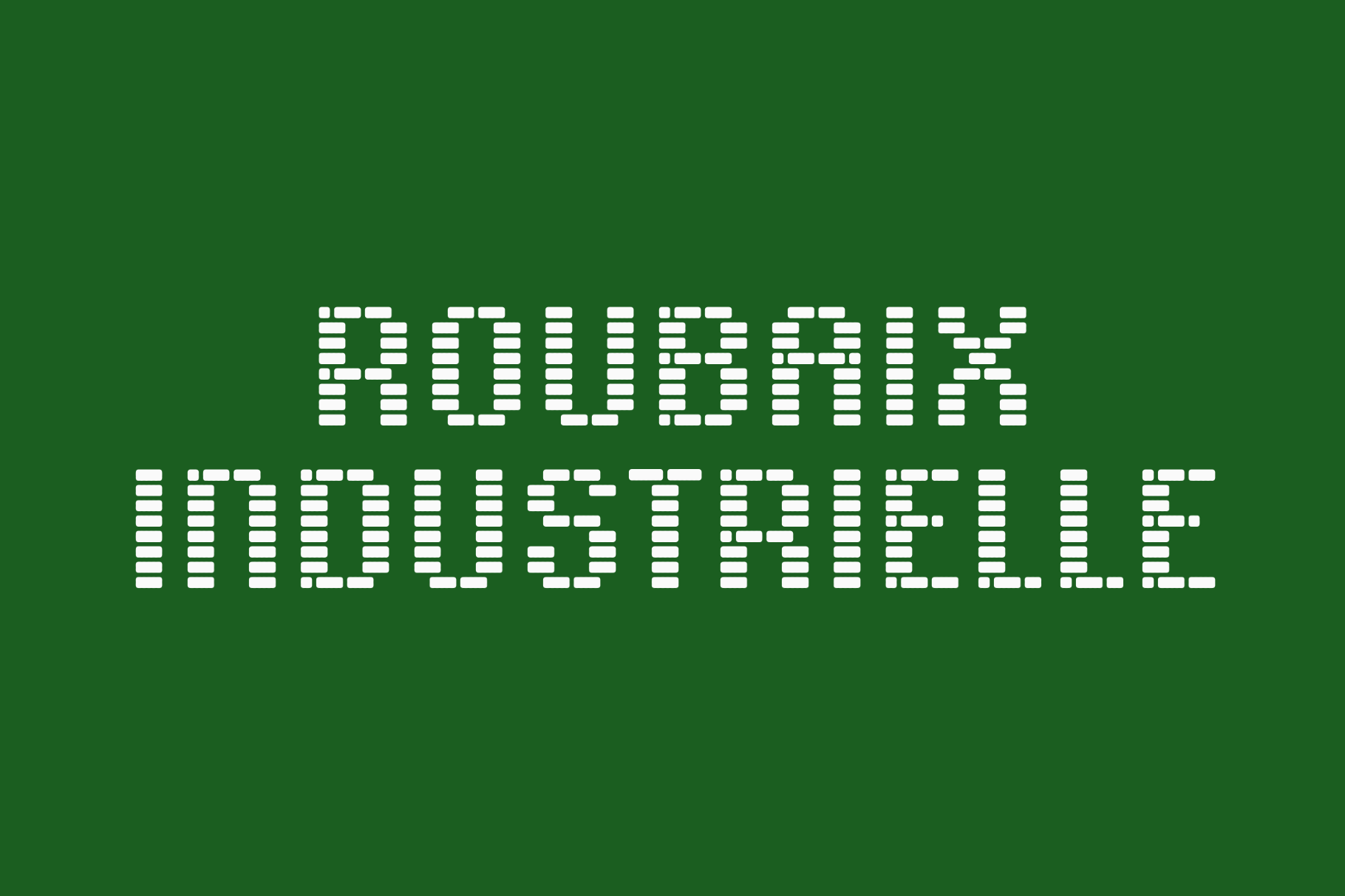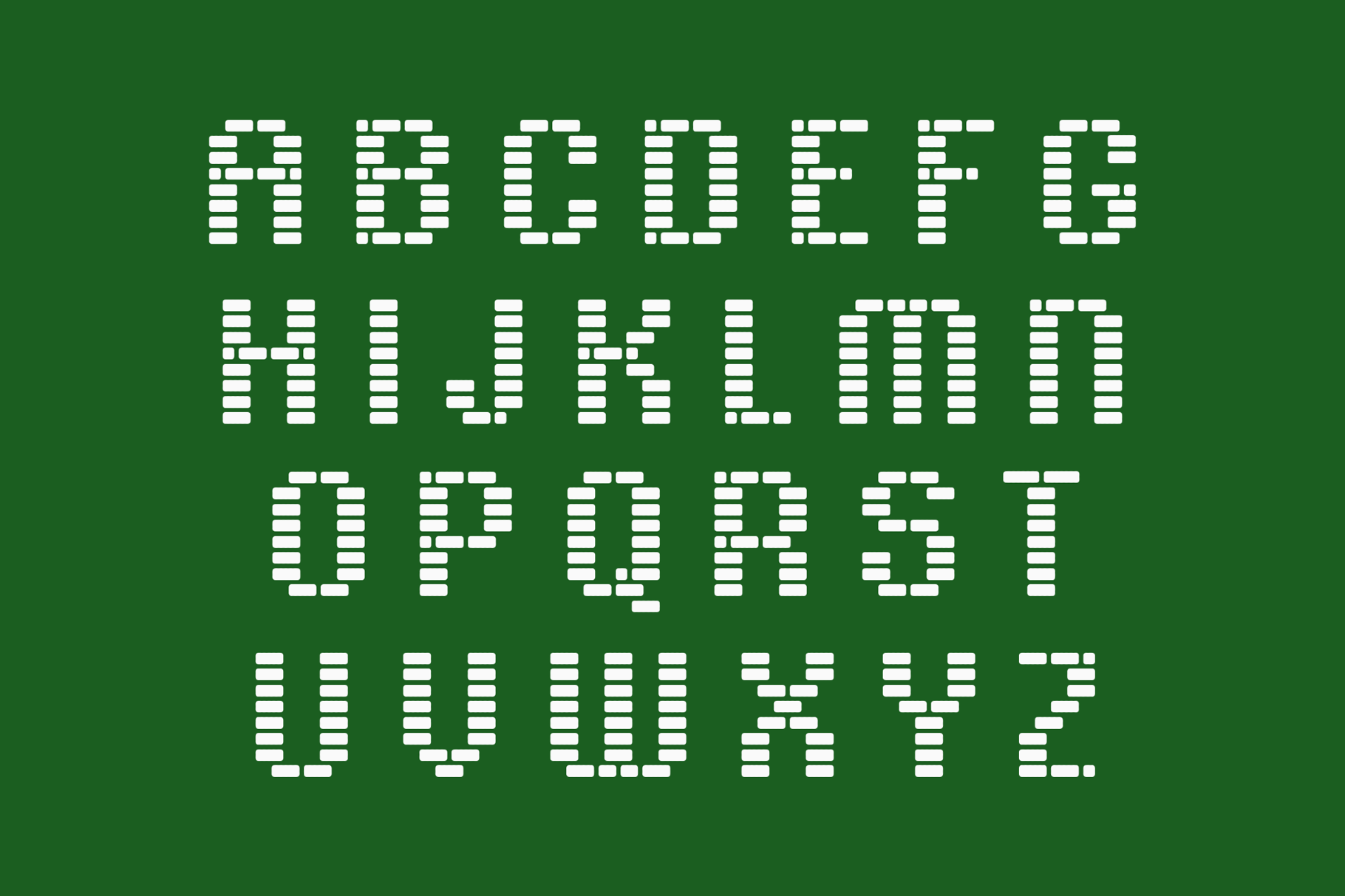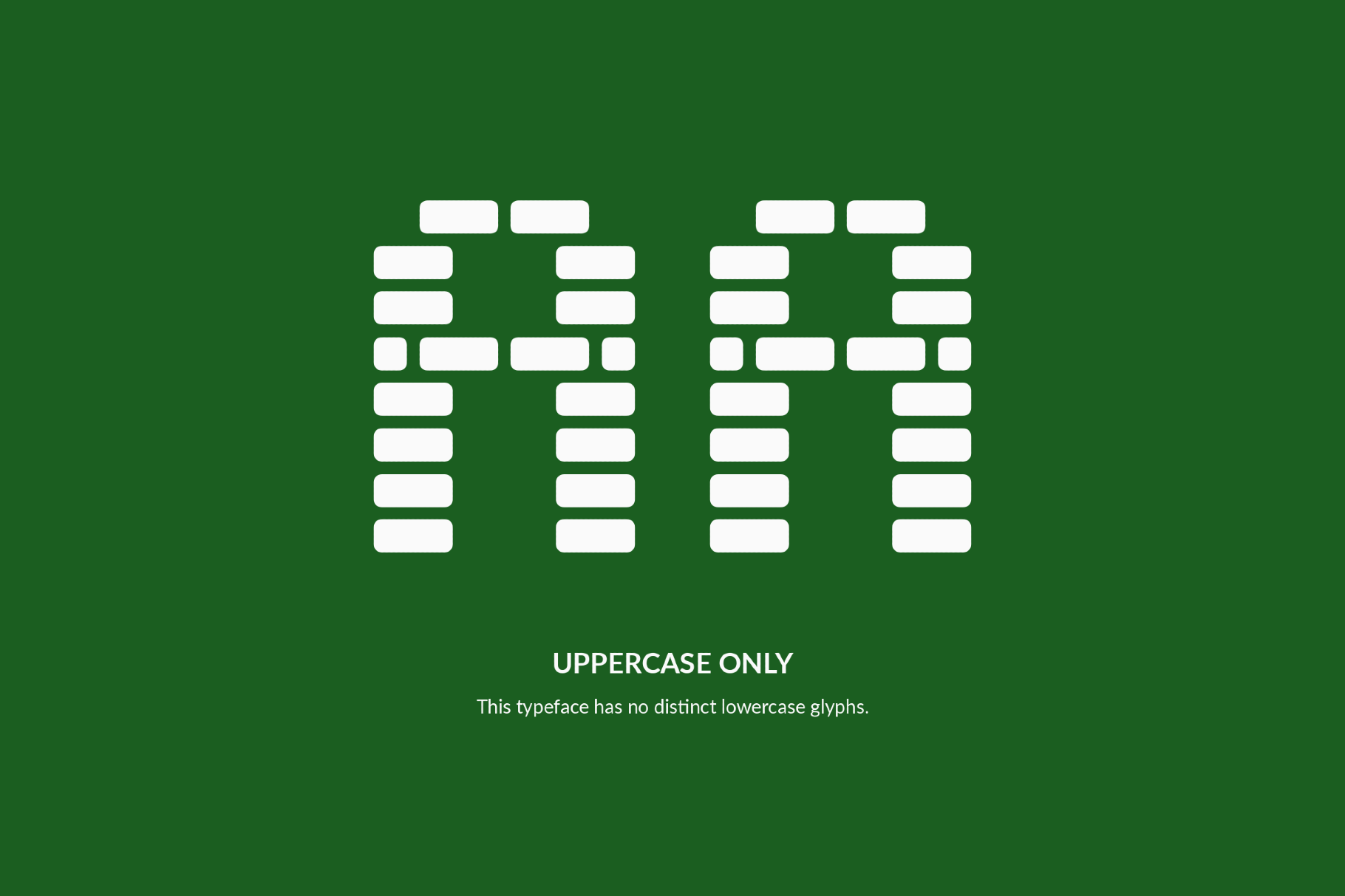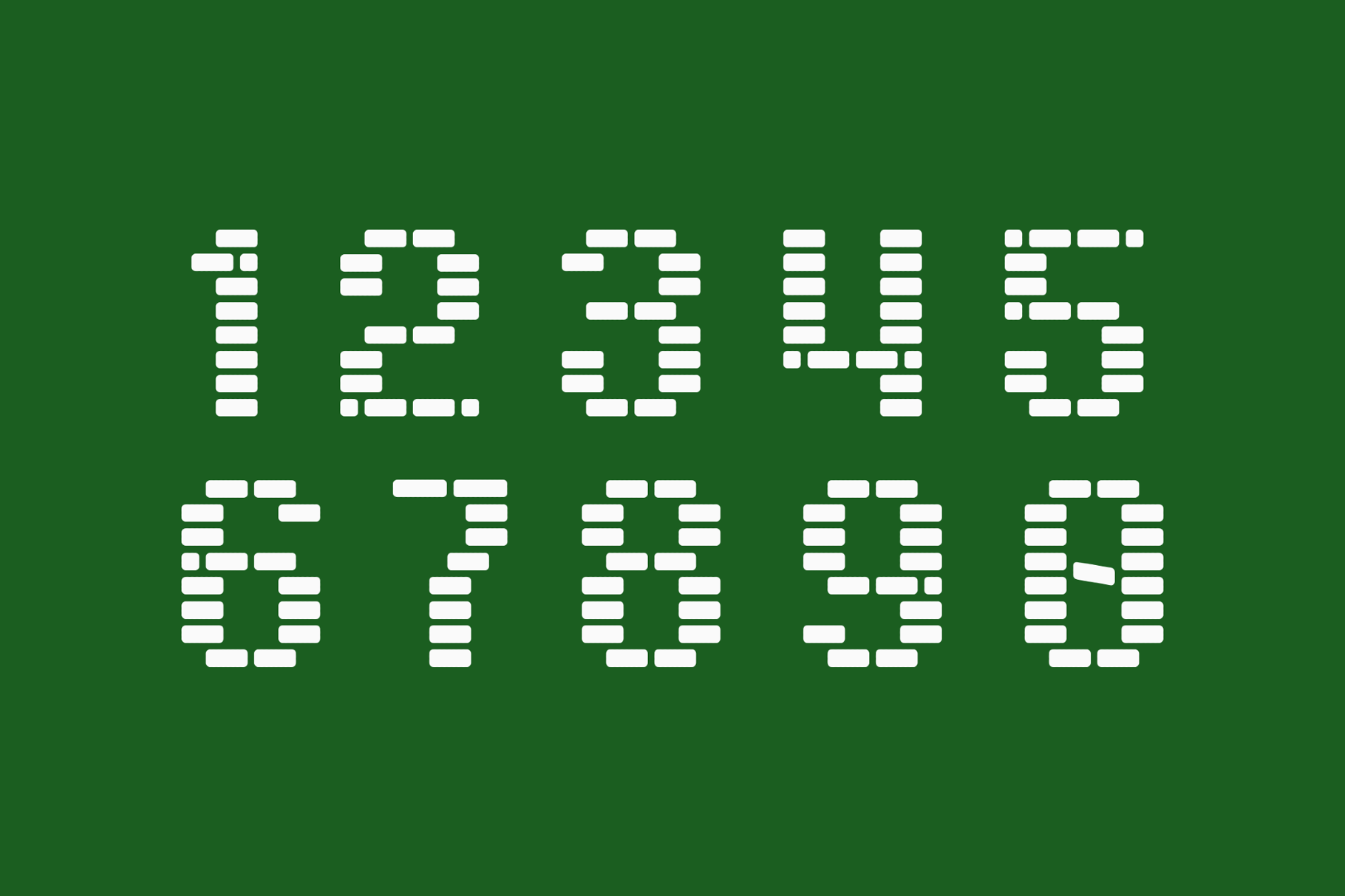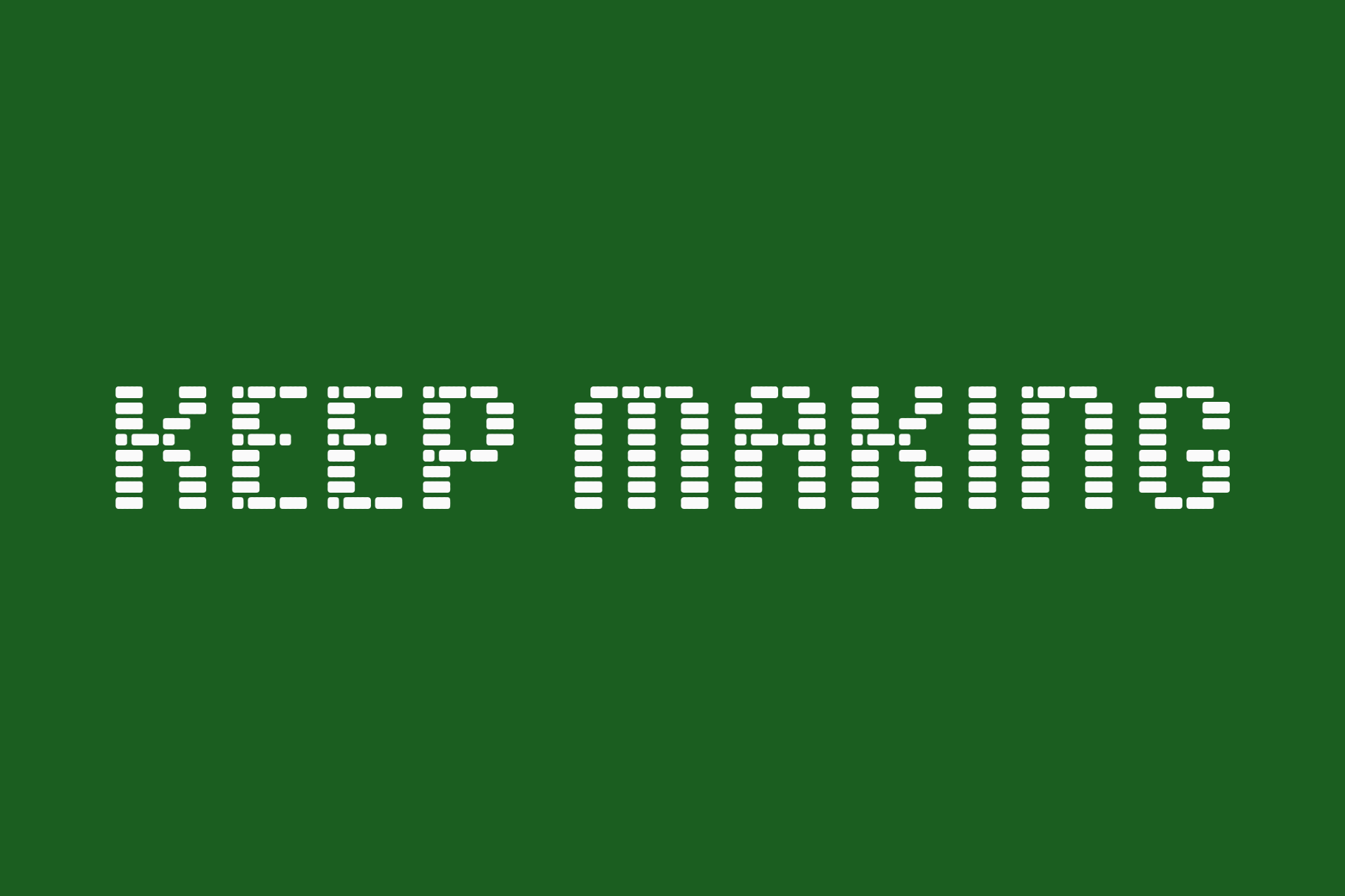
Roubaix Industrielle - Brick Font Family
Roubaix Industrielle is built from stacked rectangular modules, giving it the look of split-flap boards and stencil systems. The rigid grid and broken verticals place it between transit signage and early digital display hardware. The font is useful for poster headlines, music artwork, tech branding, packaging, motion titles, interface concepts and editorial layouts.